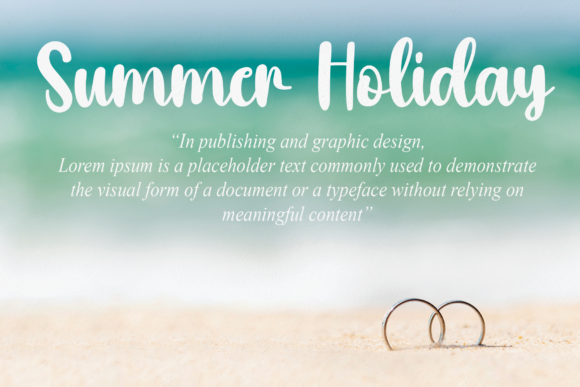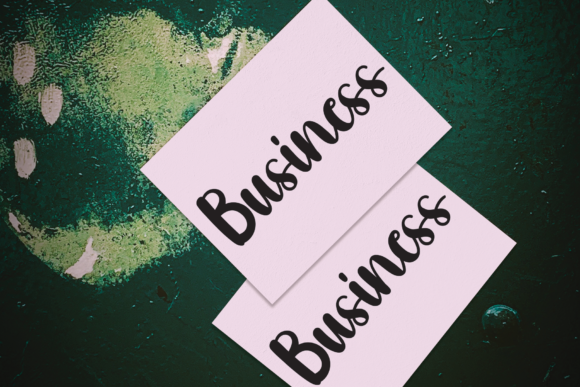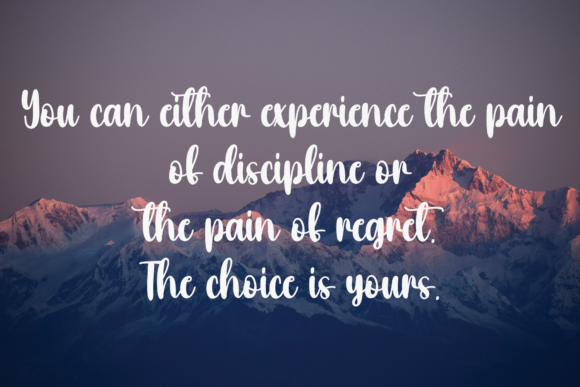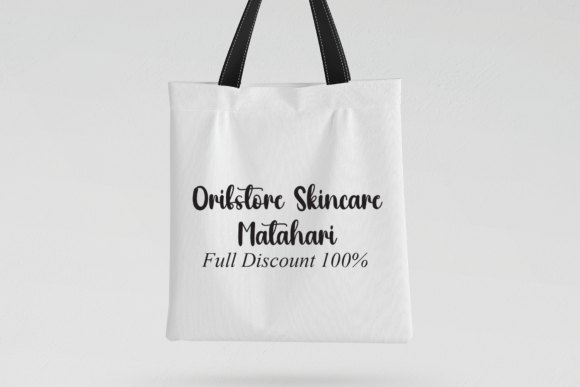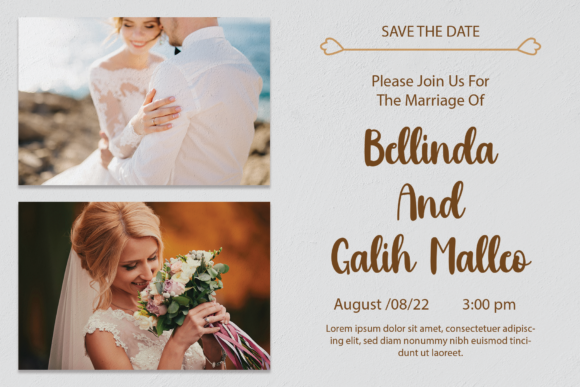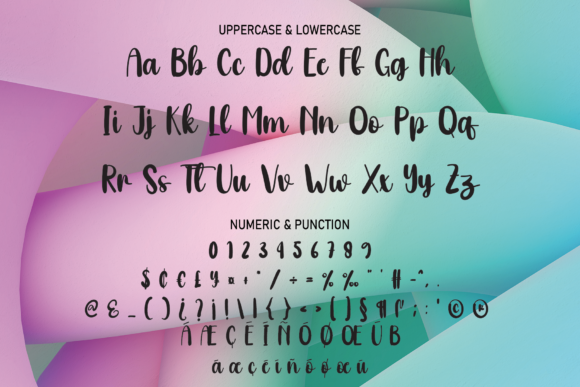
The Perfect Script Font for Your Next Creative Project
Have you ever been stuck in a design rut, pouring over fonts and styles, searching for that perfect match for your project? We’ve all been there – the frustration of not quite finding the right look and feel to bring your vision to life. But what if we told you that your search is over? Introducing the Groovy Font, a trendy and fashionable script font that’s perfect for any branding project.
This versatile font is not just a pretty face – it’s designed to make a statement and elevate your designs to the next level. Whether you’re creating logos, t-shirts, or other creative products, the Groovy Font is sure to impress. And for designers, its value lies in its ability to add a touch of personality and style to any project, making it a valuable addition to any font collection.
Groovy Font Key Features
- Character Set: The font features a comprehensive character set, including Latin, Cyrillic, and Greek alphabets, as well as a range of punctuation marks and symbols.
- Unique Characteristics: Groovy Font boasts a distinctive, hand-crafted feel, with subtle irregularities and nuances that give it a human touch.
- Style Options: The font family includes a range of styles, from casual and cursive to bold and sans-serif, allowing users to choose the perfect look for their project.
- Legibility: Groovy Font is designed to be highly legible, even at small font sizes, making it an excellent choice for body text, headings, and other types of content.
Designer Review: Groovy Font
Overall, I’d say Groovy Font has some great qualities, but also some limitations that hold it back.
- Unique style – The font’s funky, retro vibe is sure to stand out in any design.
- Highly customizable – With a range of weights, styles, and color options, you can really make this font your own.
- Great for headings – The font’s bold, playful nature makes it perfect for grabbing attention in headings and titles.
- Not suitable for body text – The font’s irregularities can make it difficult to read in large blocks of text.
- May not be accessible – The font’s unique style can make it hard for some users to read, particularly those with visual impairments.
- Limited language support – The font may not be available in as many languages as some other fonts.
Overall, I’d give Groovy Font 3.5 out of 5 stars. While it’s a great choice for headings and unique design elements, its limitations make it less suitable for body text and more general design use.
Tips for Getting the Most Out of Groovy Font
Use Groovy Font to add a touch of personality to your designs. Experiment with different styles and sizes to find the perfect fit for your project. You can also combine Groovy Font with other fonts to create a unique and eye-catching look.
Use Groovy Font for creative projects such as:
– Blog posts
– Infographics
– Brochures
– Flyers
Alternatives to Groovy Font for Designers
Pacifico is a beautiful, elegant script font that is perfect for creating a sophisticated and luxurious feel in your designs. It is ideal for use in branding, packaging, and editorial design. When to use: For high-end or premium branding, packaging, and editorial designs.
Comparison to Groovy Font: While Groovy Font has a playful and casual vibe, Pacifico exudes elegance and sophistication. Pacifico is more suitable for formal or high-end designs, whereas Groovy Font is better suited for casual or informal projects.
Great Vibes is a modern, cursive script font that is perfect for creating a fun and energetic feel in your designs. It is ideal for use in branding, advertising, and social media design. When to use: For modern, trendy branding, advertising, and social media designs.